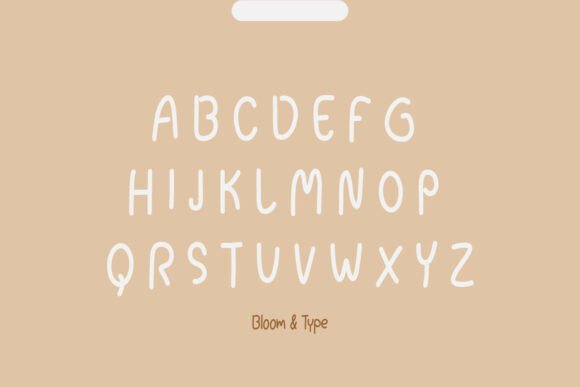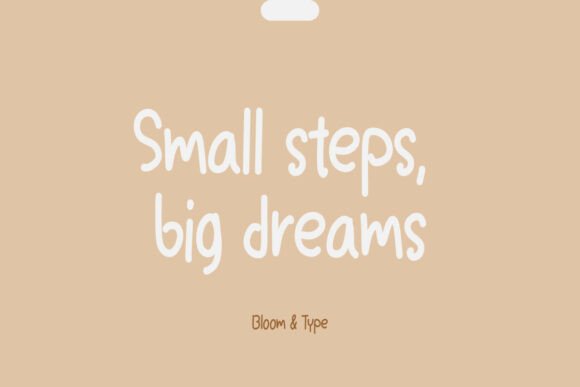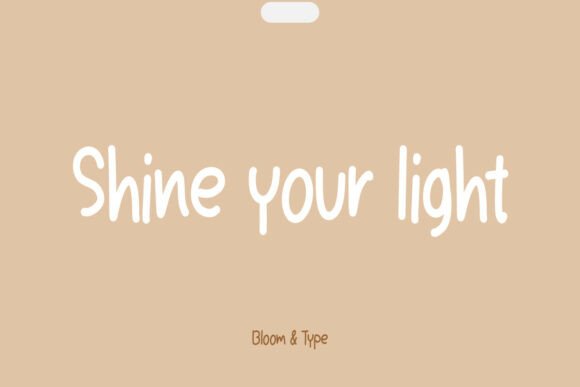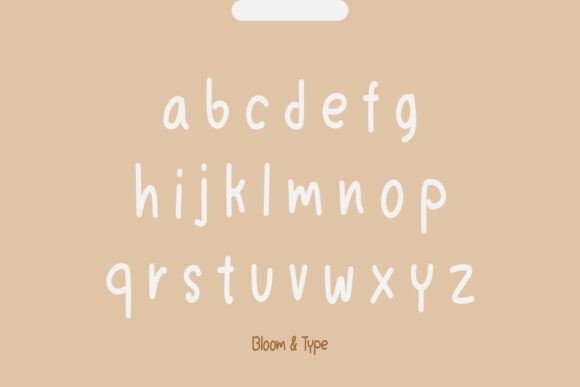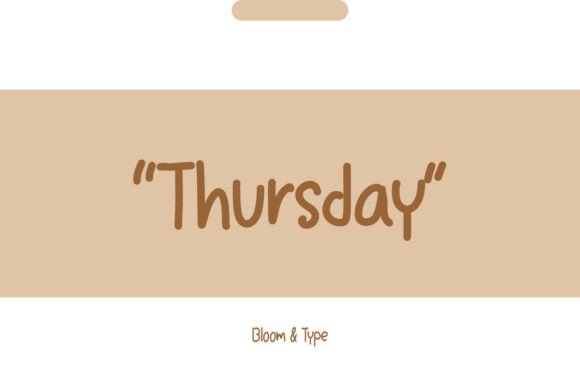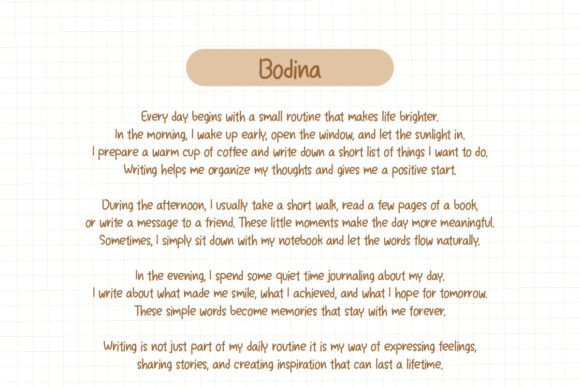
Introducing Bodina Font: The Ultimate Handwritten Font for Playful Designs
Are you looking for a font that can add a touch of warmth and friendliness to your designs? Look no further than Bodina, a cute and playful handwritten font that’s perfect for bringing a sense of approachability and personality to your creative projects. With its smooth curves and natural handwritten style, Bodina captures the charm of casual writing while remaining clean and highly readable.
The Characteristics of Bodina Font
Bodina is designed to feel soft, fun, and expressive, making it ideal for adding a personal touch to your designs. Its rounded letterforms and relaxed structure give it a cheerful and lighthearted feel, perfect for designs that need to convey a sense of friendliness and approachability. Whether you’re working on branding, social media content, quotes, or children’s designs, Bodina helps your text feel more human, engaging, and inviting.
Some of the key features of Bodina font include:
- Uppercase and lowercase letters
- Numbers and punctuation
- Multilingual support
The Benefits of Using Bodina Font
Bodina is a versatile font that’s suitable for both digital and print use, making it a great choice for creators who want a simple yet unique handwritten look. Its smooth and rounded handwritten style, friendly and playful character, and clean and easy-to-read design make it perfect for a wide range of applications.
Here are just a few benefits of using Bodina font in your designs:
- Perfect for casual designs: Bodina’s playful and handwritten style makes it ideal for casual designs, such as social media content, blog posts, and children’s books.
- Great for branding: Bodina’s friendly and approachable feel makes it perfect for branding projects that need to convey a sense of warmth and personality.
- Suitable for digital and print use: Bodina is a versatile font that can be used for both digital and print projects, making it a great choice for creators who need a font that can adapt to different mediums.
- Easy to read: Despite its playful style, Bodina is clean and easy to read, making it perfect for designs that need to communicate a message clearly and effectively.
How to Use Bodina Font in Your Designs
- Pair it with other fonts: Bodina looks great when paired with other fonts, such as sans-serif fonts or serif fonts. Experiment with different combinations to find the perfect look for your design.
- Use it for headings and body text: Bodina is suitable for both headings and body text, making it a great choice for designs that need a consistent look and feel.
- Experiment with colors and textures: Bodina looks great in a variety of colors and textures. Experiment with different options to find the perfect look for your design.
Bodina font is a unique and versatile font that’s perfect for designers and crafters who want to add a touch of personality to their designs. With its smooth curves, natural handwritten style, and friendly and playful character, Bodina is ideal for a wide range of applications, from branding and social media content to children’s designs and more. Whether you’re looking for a font that’s perfect for casual designs or want to add a personal touch to your projects, Bodina is a great choice.